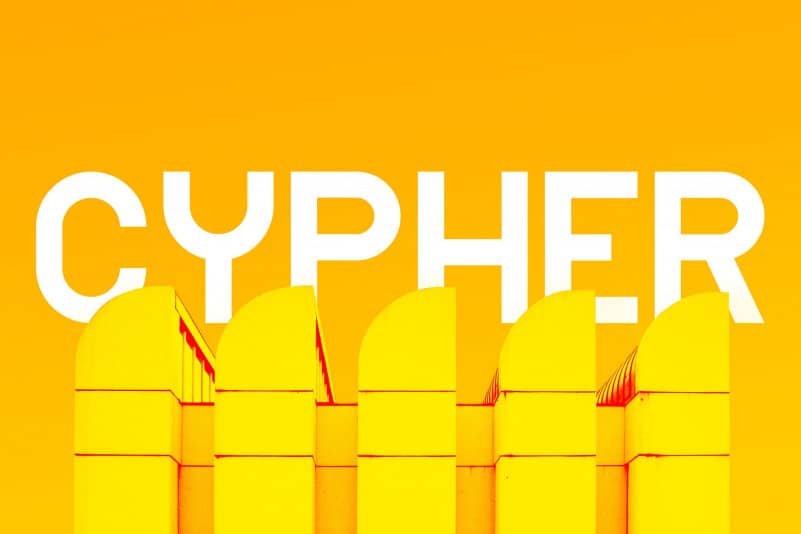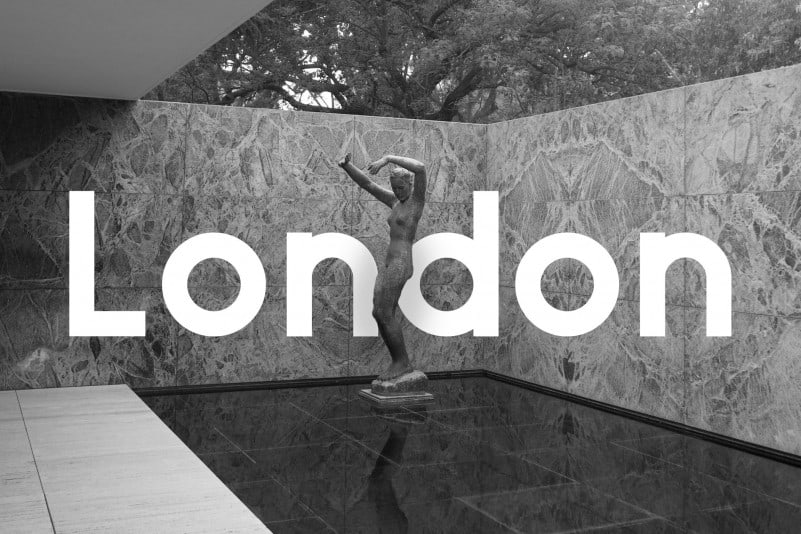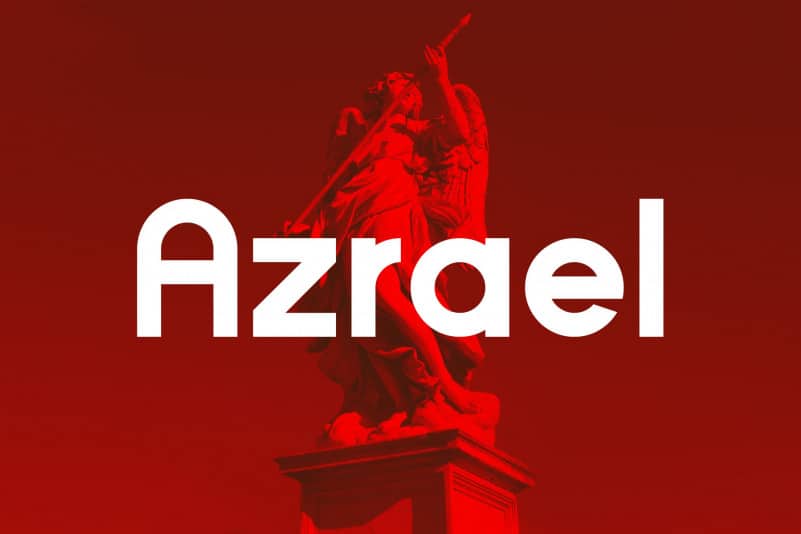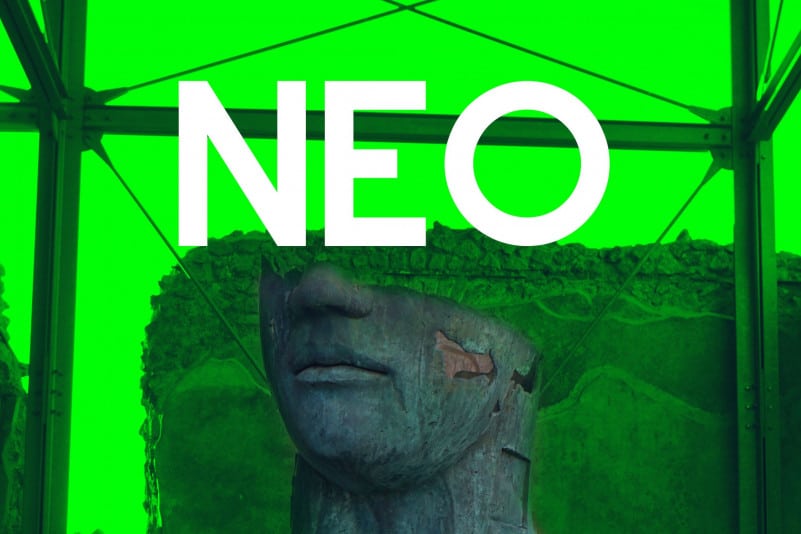
Cypher Sans Serif Font is a modern, geometric typeface family. This font family consists of 4 fonts. Cypher is a typeface heavily influenced by the Bauhaus movement. The font letterforms have been fashioned around the key principles of Bauhaus. Cypher could be perfect choice for logo / logotype design, branding, marketing graphics, banners, posters, signage, corporate identities as well as for editorial design that can bring uniqueness.